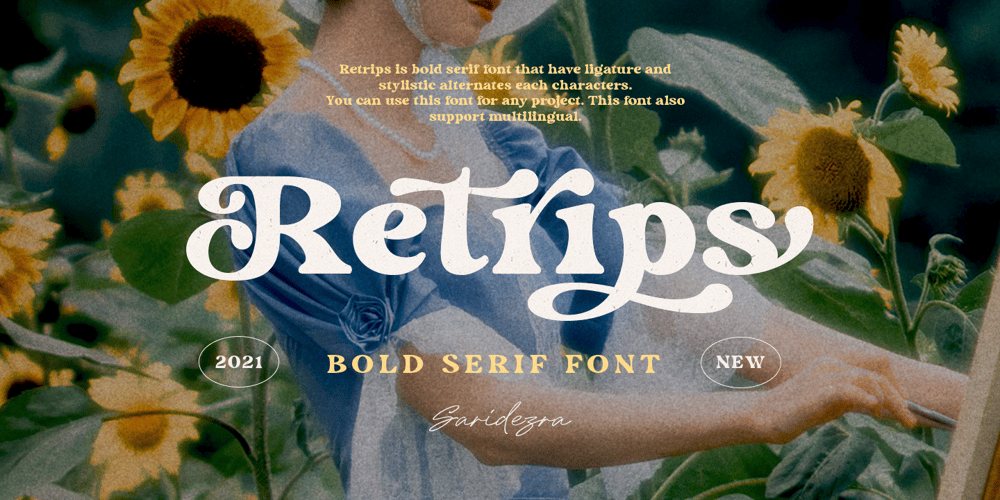
Retrips Font Family was designed by Sarid Ezra and published by Sarid Ezra. Retrips contains 1 styles and family package options. Introducing, new font, Retrips – a soft bold serif with ligatures and alternates!Retrips is a modern and soft bold serif with a bunch of ligatures and alternates that will make your presentation or logo even more stunning and stand out! This font will make your project looks retro and chic. You can use this font for poster, event, or your social media post. Retrips also support Multi Language. and already PUA Encoded!Features Uppercase & Lowercase Number & Symbol Multi language Ligatures Alternates for each characters PUA Encoded